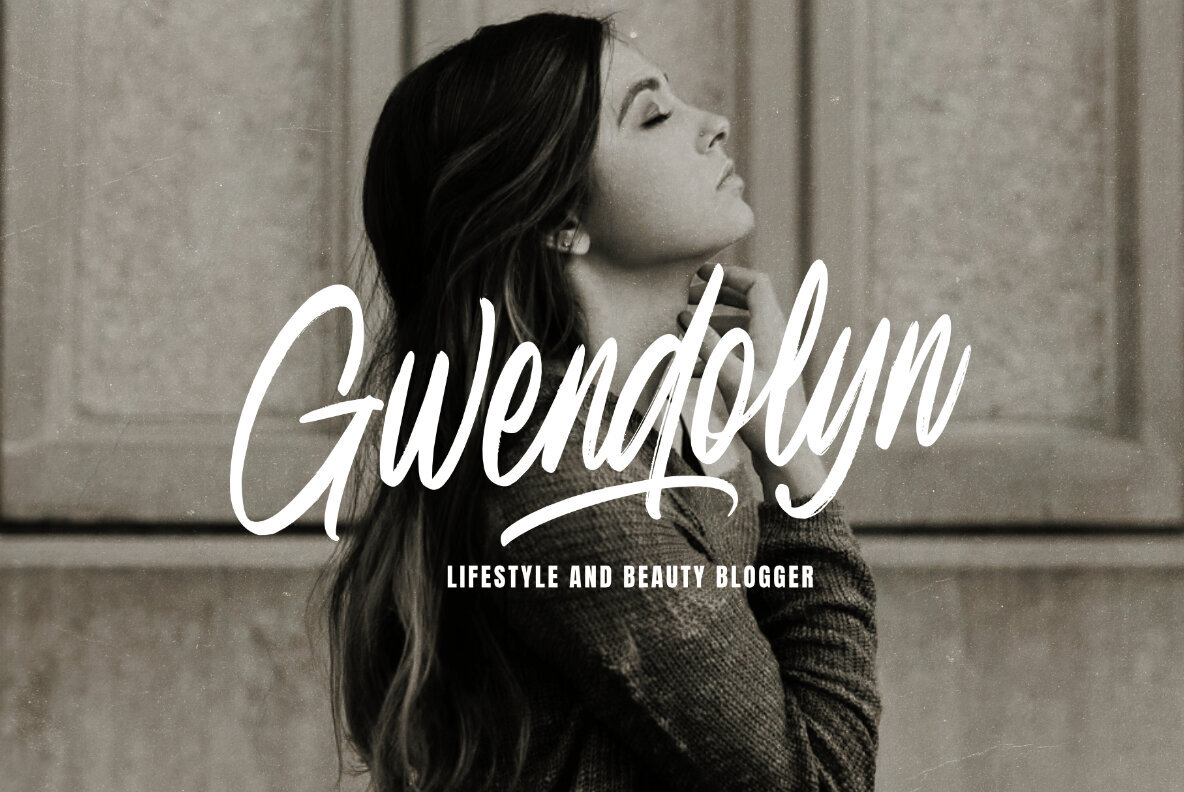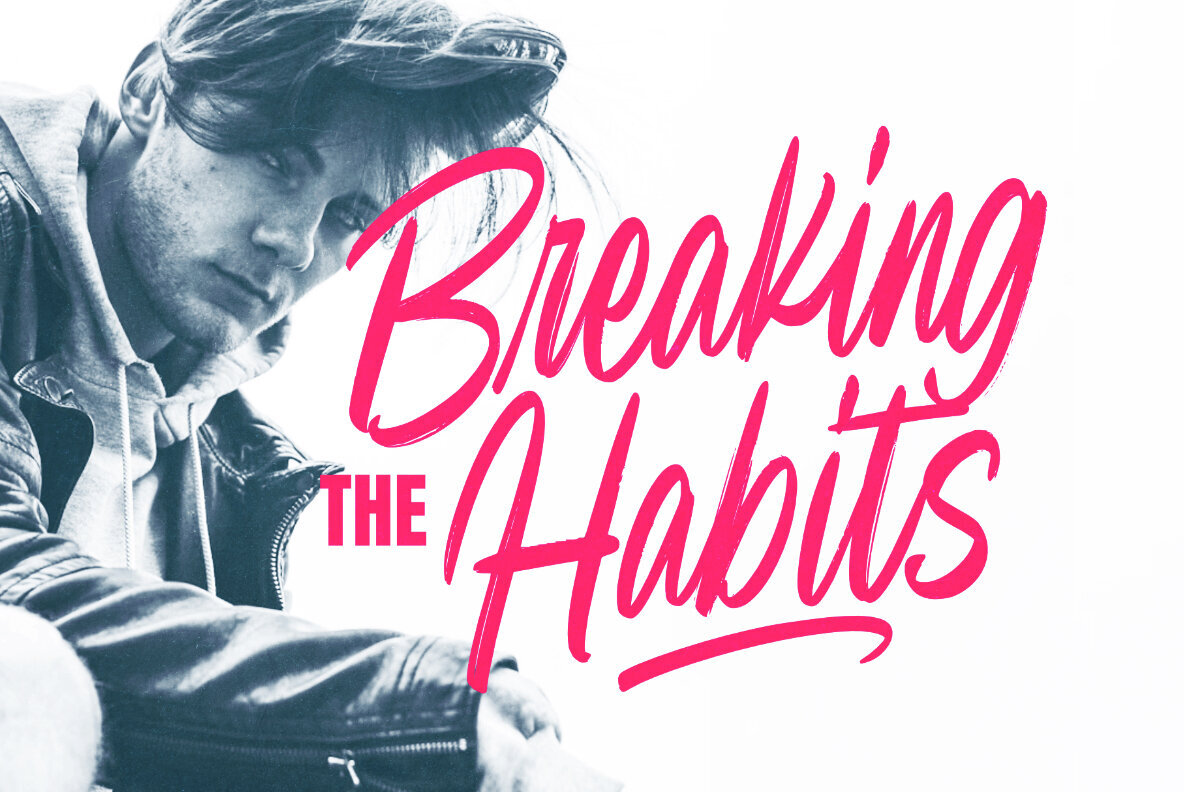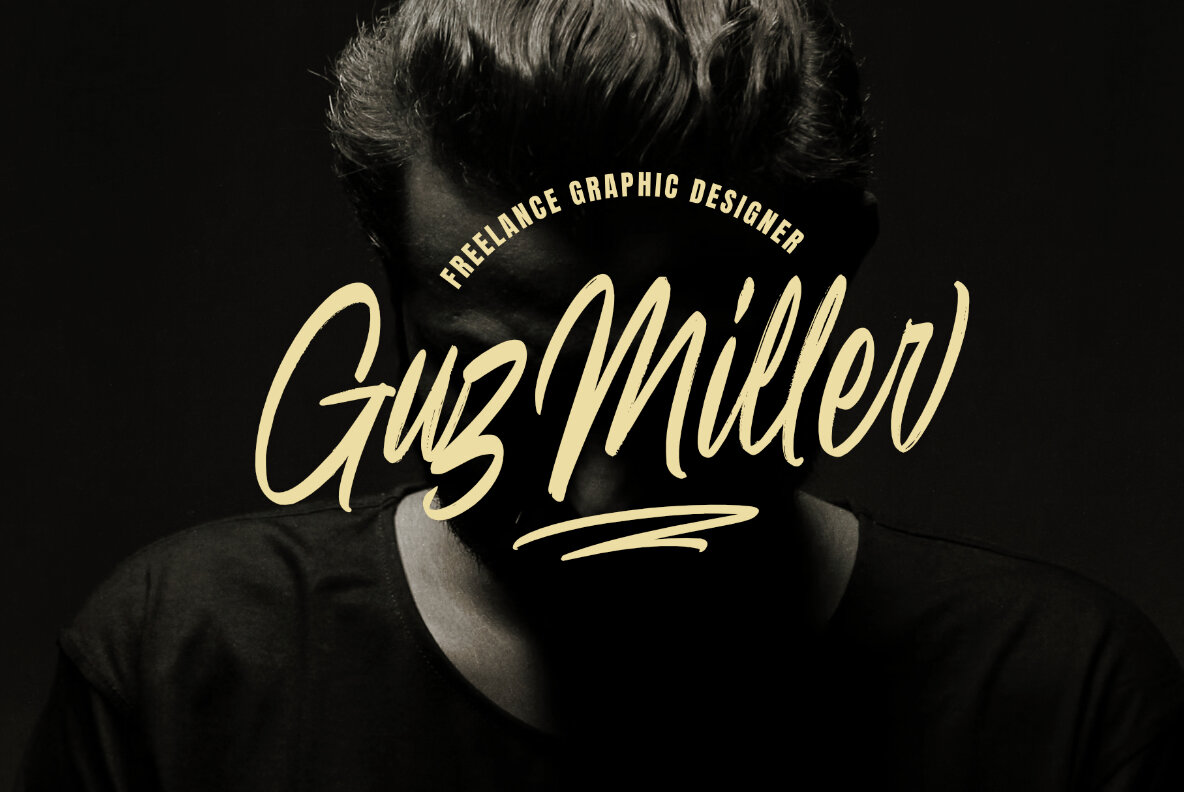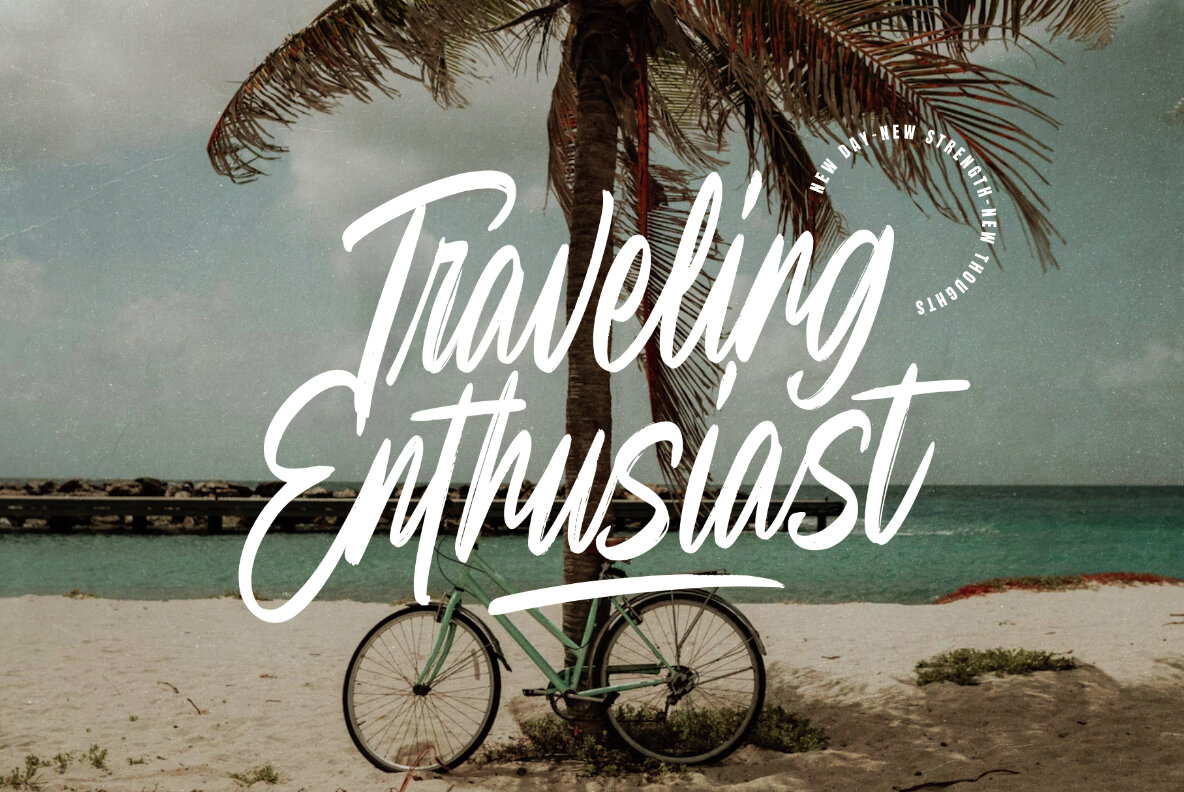
Moving Sunday Font
Moving Sunday Regular
This font possesses an expressive, energetic handwritten quality that emanates a sense of personal touch and informality. Ideal for display purposes, its fluid brush strokes and dynamic letterforms lend itself well to creative branding, artistic expression, and casual messaging where a distinctive human presence is desired. The imperfect and organic nature of this typeface makes it a bold choice for designers looking to infuse their work with a playful and emotive atmosphere.